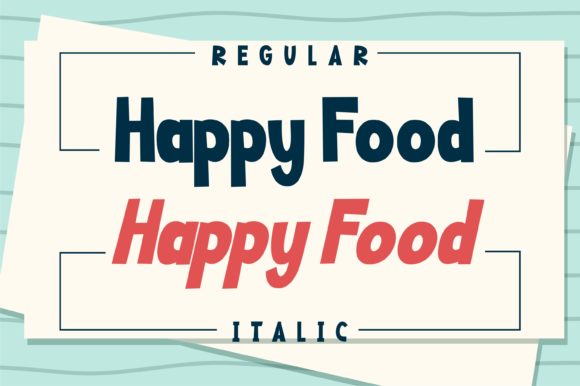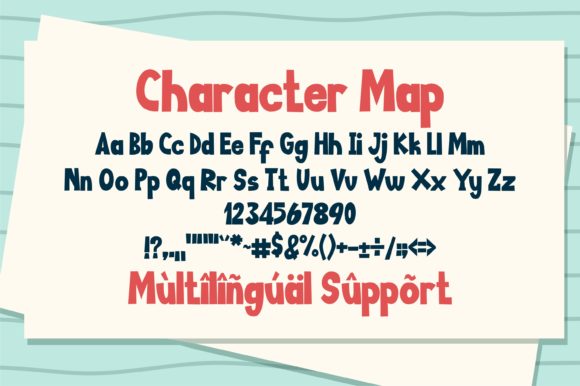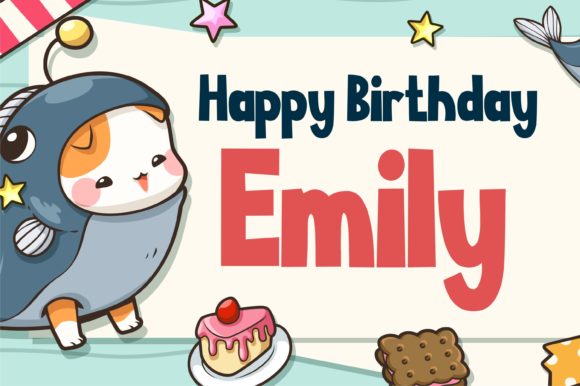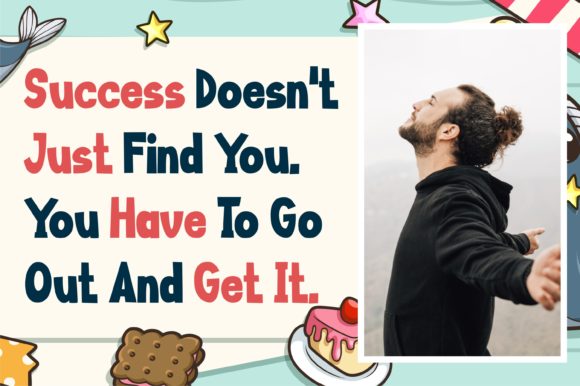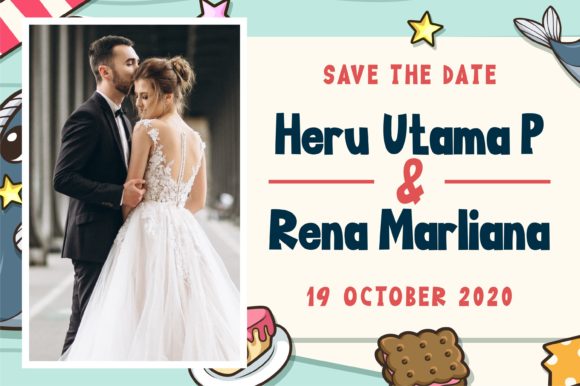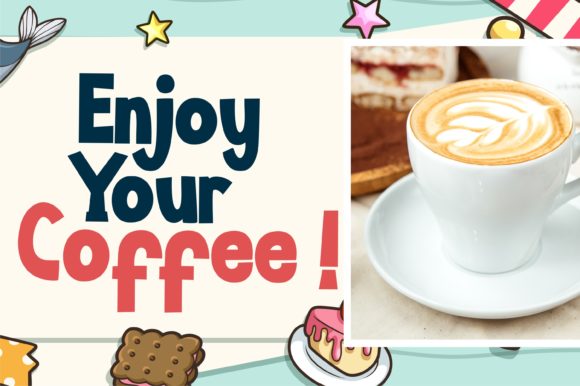
Introducing Happy Food Font: The Perfect Addition to Your Design Collection
Are you tired of using the same old fonts in your designs? Look no further than Happy Food Font, a bold and cute display font that’s sure to add a touch of personality to any project. With its casual style and versatility, Happy Food Font is incredibly fitting for a wide range of designs, from playful crafts to professional branding.
The Characteristics of Happy Food Font
So, what makes Happy Food Font so special? For starters, its bold and cute display style is sure to grab attention and add a touch of whimsy to any design. The font’s casual style also makes it incredibly easy to read and understand, making it perfect for use in a variety of contexts, from headings and titles to body text and more.
Another key characteristic of Happy Food Font is its versatility. Whether you’re working on a design for a children’s book, a food blog, or a fashion brand, this font is sure to fit right in. Its playful style is also perfect for use in crafts, such as scrapbooking, card making, and other DIY projects.
Why Designers and Crafters Love Happy Food Font
So, why do designers and crafters love Happy Food Font? For one, its bold and playful style makes it incredibly easy to use and pair with other fonts. Whether you’re looking to create a fun and playful design or a more professional and elegant look, Happy Food Font is the perfect choice.
Another reason designers and crafters love Happy Food Font is its ability to add a touch of personality to any design. With its cute and casual style, this font is sure to help your designs stand out from the crowd and leave a lasting impression on your audience.
Whether you’re a professional designer or a crafty DIY enthusiast, Happy Food Font is a great addition to your font collection. Its versatility and playfulness make it perfect for use in a wide range of designs, from digital projects to handmade crafts.
Using Happy Food Font in Your Designs
So, how can you use Happy Food Font in your designs? Here are a few ideas to get you started:
- Use Happy Food Font as a heading or title font to add a touch of personality to your design.
- Pair Happy Food Font with other fonts to create a unique and eye-catching design.
- Use Happy Food Font in your digital designs, such as social media graphics, blog posts, and more.
- Use Happy Food Font in your handmade crafts, such as scrapbooking, card making, and other DIY projects.
Tips and Tricks for Getting the Most Out of Happy Food Font
Here are a few tips and tricks for getting the most out of Happy Food Font:
- Experiment with different font sizes and styles to find the perfect look for your design.
- Use Happy Food Font in combination with other design elements, such as images and graphics, to create a visually appealing design.
- Don’t be afraid to get creative and try new things with Happy Food Font – its versatility and playfulness make it the perfect font for experimenting with different design ideas.
In conclusion, Happy Food Font is a bold and cute display font that’s sure to add a touch of personality to any design. With its casual style and versatility, this font is incredibly fitting for a wide range of designs, from playful crafts to professional branding. Whether you’re a professional designer or a crafty DIY enthusiast, Happy Food Font is a great addition to your font collection.